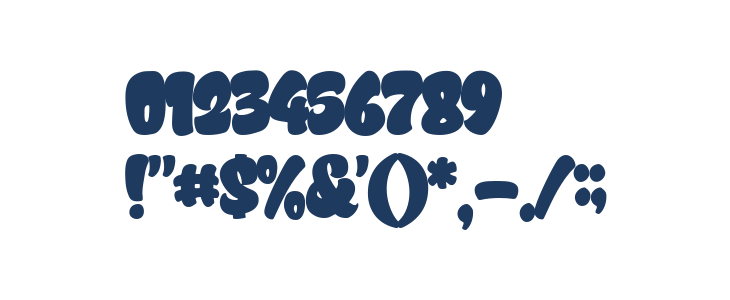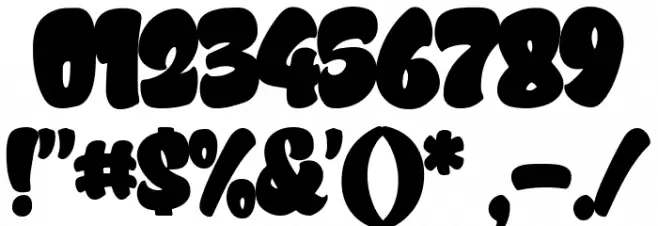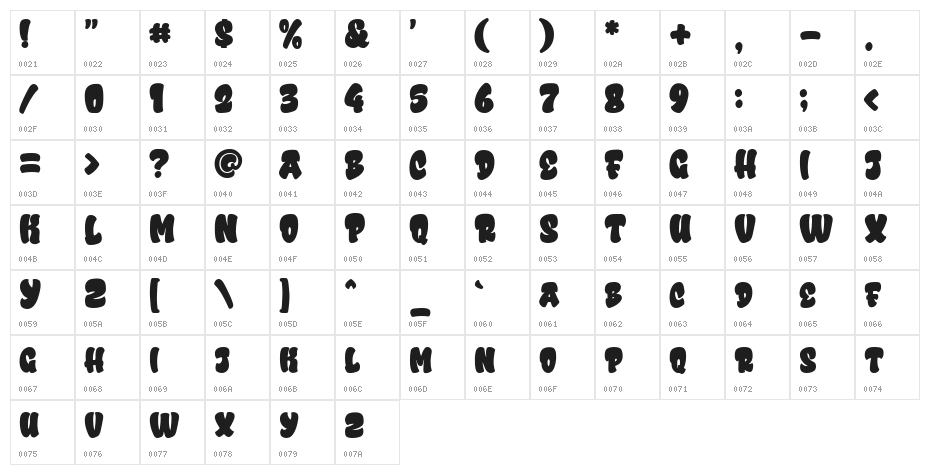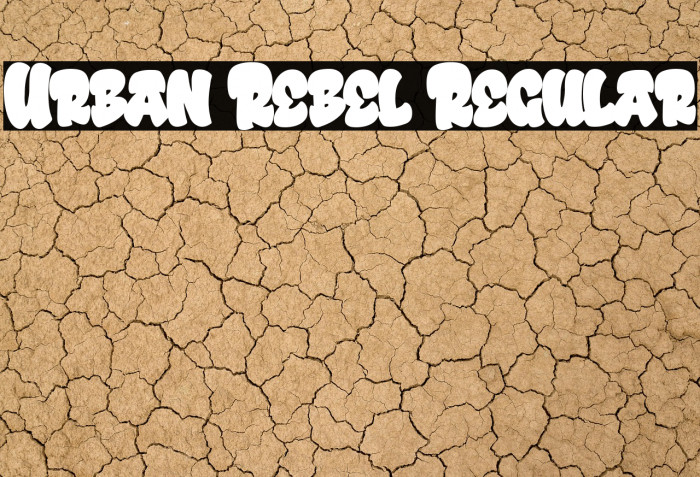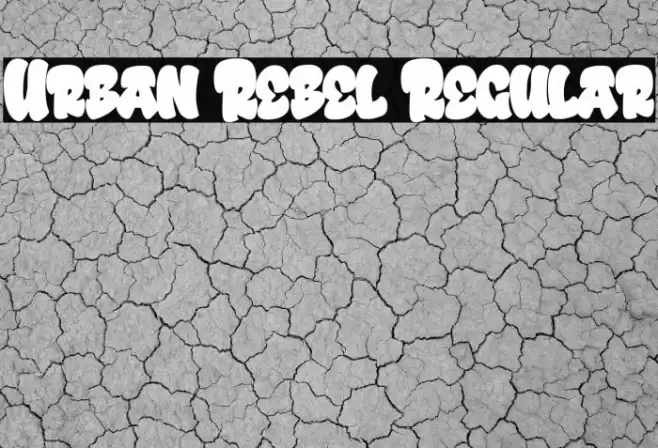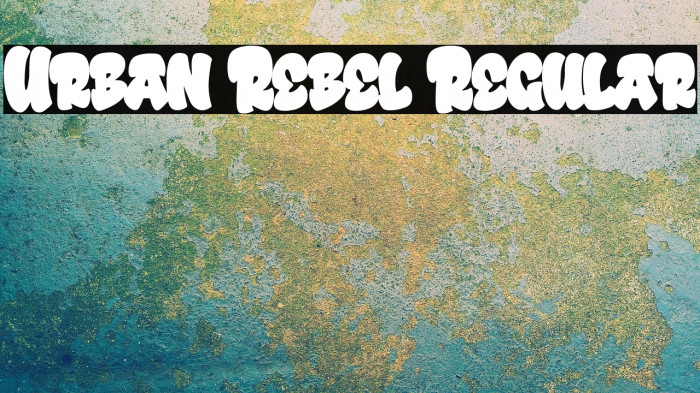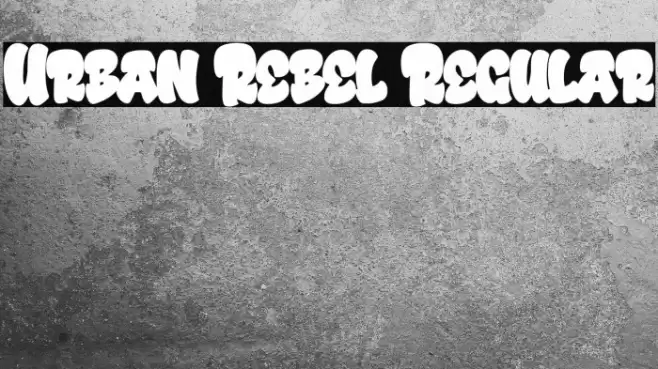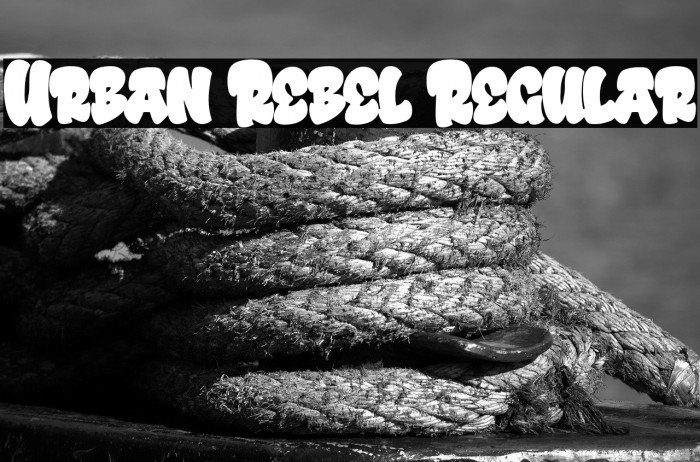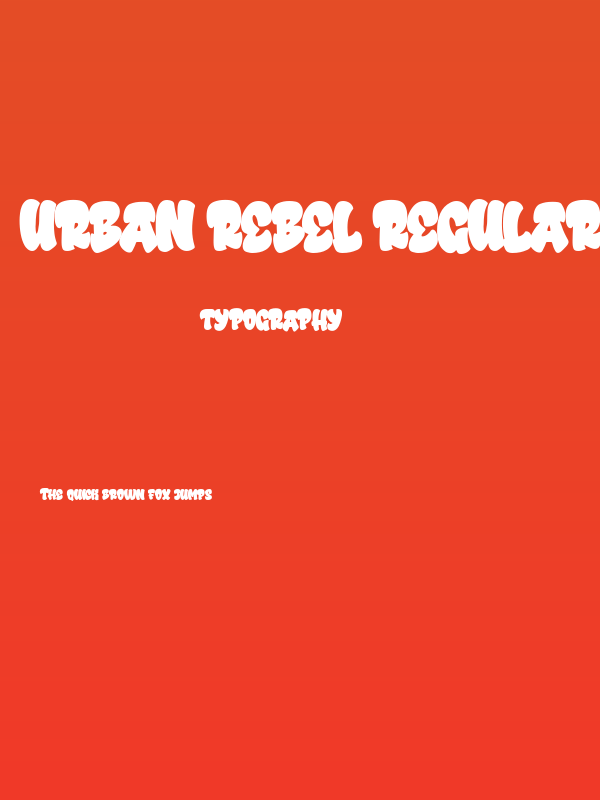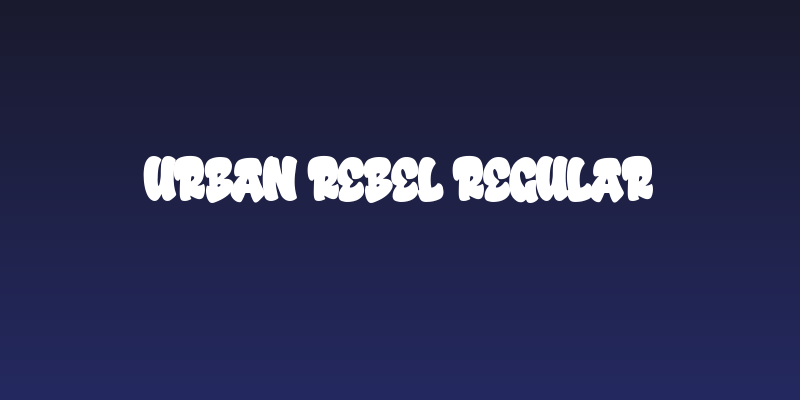
Urban Rebel Regular Font
Urban Rebel Regular Description
This font features a bold and playful design, characterized by its thick, rounded strokes and a bubbly appearance. The letters are closely spaced, giving it a compact and energetic feel. The uppercase and lowercase characters maintain a consistent style, with exaggerated curves and a slightly whimsical touch. Numbers and special characters follow the same design principles, ensuring uniformity across all glyphs. This font exudes a sense of fun and creativity, making it ideal for projects that require a lively and informal tone.
| Overall Style | Playful, Energetic |
| Proposed Projects | Perfect for children's books, playful branding, event posters, and social media graphics. |